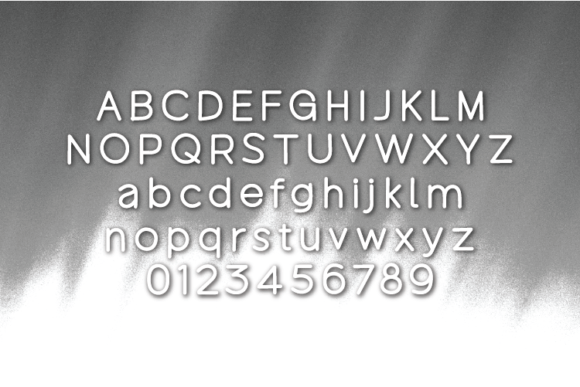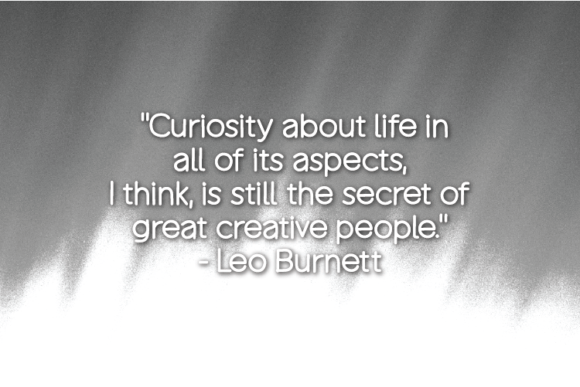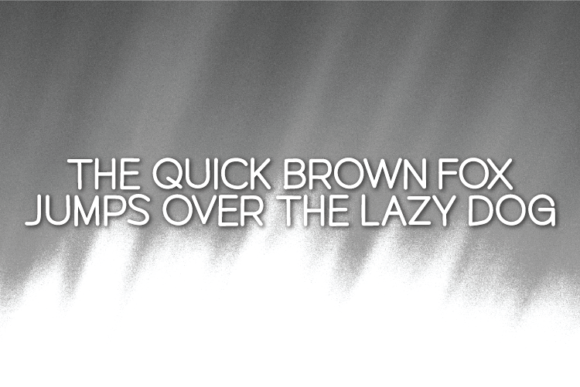
Discover the Perfect Typography Companion: California Font
Do you remember that moment when you finally found the perfect font to elevate your design project? For many designers, it’s a feeling like no other – like the missing piece of a puzzle has fallen into place. You’re about to experience that same excitement with the introduction of the California Font, a stunning sans serif typeface that effortlessly combines elegance and natural charm.
This versatile font is designed to add a touch of sophistication to your work without requiring too much effort. Whether you’re creating a logo, branding materials, or marketing collateral, the California Font is sure to make your product stand out from the crowd. As a valuable addition to any designer’s toolkit, it’s the perfect choice for those seeking a timeless and versatile typography solution.
California Font Key Features
- Font Size: The font family includes various weights and styles, ranging from Thin (100) to Extra Bold (800), providing flexibility for different design applications.
- Unique Characteristics: The font features a modern, elegant, and sophisticated design with subtle rounded edges, giving it a unique and eye-catching appearance.
- Language Support: California Font supports a wide range of languages, including Latin, Cyrillic, and Greek alphabets, making it a versatile choice for global designs.
California Font Review
As a designer, I had the opportunity to work with the California Font, and I must say it’s a unique and eye-catching choice for any project. ✨ The font’s sleek, modern aesthetic is perfect for capturing the essence of the Golden State. The clean lines and geometric shapes give it a refreshing feel that’s sure to grab attention.
- ✨ Versatility: California Font can be used for a wide range of applications, from signage to digital interfaces.
- ✨ Legibility: The font is highly legible, making it easy to read even at small font sizes.
- ✨ Customization: The font offers a range of customization options, allowing you to tailor it to your specific design needs.
- ⚠️ Limited character set: The font’s character set is not as extensive as some other fonts, which may limit its use for certain projects.
- ⚠️ Not ideal for body text: While California Font is great for headings and titles, it may not be the best choice for body text due to its relatively large x-height.
Overall, I think California Font is a great choice for designers looking to add a touch of California cool to their projects. With its sleek aesthetic and customization options, it’s a great addition to any design toolkit.
California Font is a great choice for:
- Casual designs, such as social media graphics and blog posts.
- Beach-themed designs, such as summer promotions and beach-inspired graphics.
- Fun and playful designs, such as children’s books and party invitations.
Remember to pair California Font with a clean and simple design to make the most of its unique character.
Alternatives to California Font
Great Vibes is a modern, cursive font perfect for creating a relaxed and casual atmosphere. It’s ideal for use in logos, branding, and advertisements that require a friendly and approachable tone. Great Vibes is more playful and expressive than California Font, with a wider range of ligatures and flourishes.
Pacifico is a beautiful, elegant script font that’s reminiscent of the classic fonts from the 1940s. It’s perfect for use in high-end branding, luxury packaging, and upscale advertisements. Pacifico is more refined and sophisticated than California Font, with a more subtle and understated feel.
Dancing Script is a lively, energetic font that’s perfect for creating a sense of excitement and playfulness. It’s ideal for use in logos, branding, and advertisements that require a bold and attention-grabbing tone. Dancing Script is more dramatic and expressive than California Font, with a wider range of swashes and flourishes.